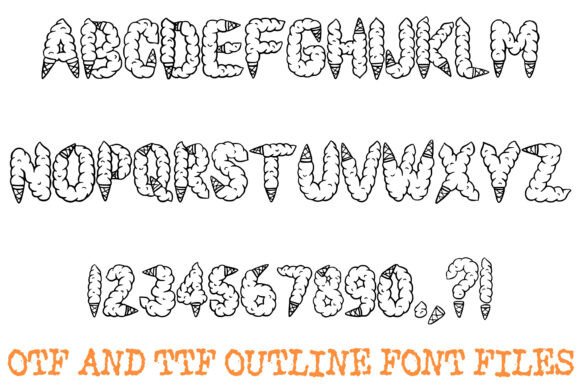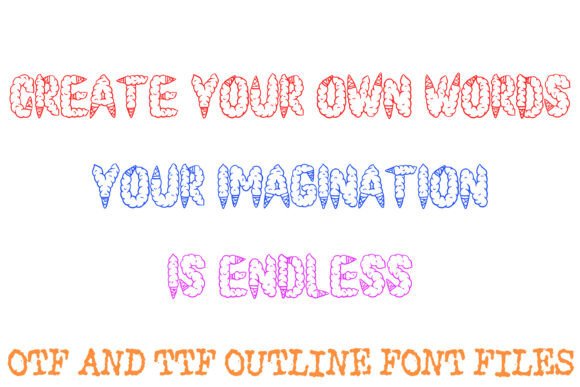
A Delicious Design Opportunity
As a designer, have you ever been tasked with creating a summer-themed campaign or branding for a dessert shop? You’re rummaging through your font library, searching for the perfect typeface to capture the essence of a cold scoop on a hot day. And then, it hits you – the perfect font to evoke the feeling of a sweet treat on a sunny afternoon.
Enter the delightful Ice Cream Cone Font, a display typeface that brings the joy of a summer treat to life. With its bubbly, cloud-like letterforms and textured cone accents, this font is a must-have for designers creating birthday party invitations, ice cream shop branding, and seasonal festival posters. Its hand-drawn outlines give each letter a whimsical, “melting” personality that’s sure to make your designs stand out.
Whether you’re building an identity for a dessert truck or designing vibrant children’s apparel, the Ice Cream Cone Font provides a fun, high-impact aesthetic that’s as refreshing as a cold scoop on a hot day.
Key Features of Ice Cream Cone Font
- Font Family: Ice Cream Cone Font is a unique, hand-drawn font designed to resemble an ice cream cone.
- Unique Characteristics: Features a playful, whimsical design with irregular shapes and lines, giving it a distinctive and eye-catching appearance.
Review of “Ice Cream Cone Font”
As a designer, I’m always on the lookout for unique and playful fonts that can add a touch of whimsy to a project. The “Ice Cream Cone Font” caught my eye with its fun and colorful design.
- ✨ The font is extremely versatile and can be used for a variety of projects, from children’s books to ice cream shop branding.
- ✨ The color palette is bright and cheerful, making it perfect for warm and inviting designs.
- ✨ The font is well-designed and easy to read, even at small sizes.
- ⚠️ The font may not be suitable for formal or professional projects, as it can come across as too playful or childish.
- ⚠️ The font is not as customizable as some other fonts, which may limit its use in certain design scenarios.
Overall, I think the “Ice Cream Cone Font” is a fun and creative addition to any designer’s toolkit. While it may have some limitations, its unique design and versatility make it a great choice for projects that need a touch of whimsy.
The Ice Cream Cone font is perfect for adding a playful touch to your designs. Common use cases include:
- Food-related designs, such as ice cream shops or restaurants.
- Children’s party invitations or decorations.
- Summer-themed designs, such as beach or pool party invitations.
Remember to experiment with different font sizes and styles to get the most out of the Ice Cream Cone font.
Alternatives to Ice Cream Cone Font
Bubblegum Sans
Bubblegum Sans is a playful, sans-serif font perfect for adding a touch of whimsy to your designs. It’s ideal for creating a fun and youthful atmosphere in branding, advertising, or social media campaigns. Compared to Ice Cream Cone Font, Bubblegum Sans is more versatile and can be used in a variety of contexts, from casual to formal.
Cream Soda is a vintage-inspired script font that’s reminiscent of classic ice cream parlor signs. It’s perfect for creating a nostalgic and retro vibe in designs. While Ice Cream Cone Font has a more modern feel, Cream Soda is better suited for projects that require a more classic or vintage aesthetic.